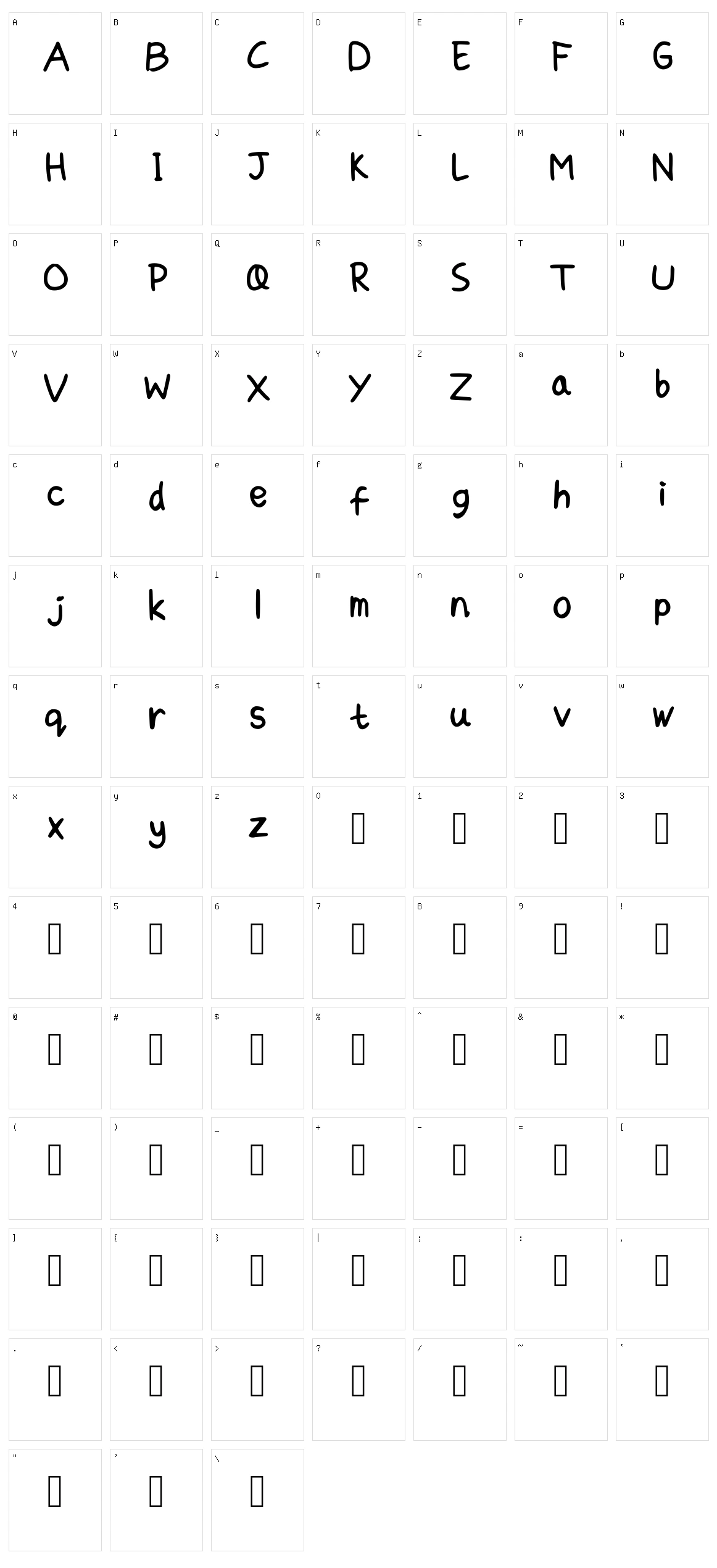
The free font Luppy is carefully designed by Itz Luppy, showcasing a thoughtful balance of creativity and usability and falls under the Script font style. When you download the ZIP file, it contains only 7.4 KB of font files, making it lightweight and quick to download. Please review the license details below to understand permitted usage and distribution rights. If license information is not available, we recommend using this font for personal projects only or contacting the author directly for commercial usage permissions.